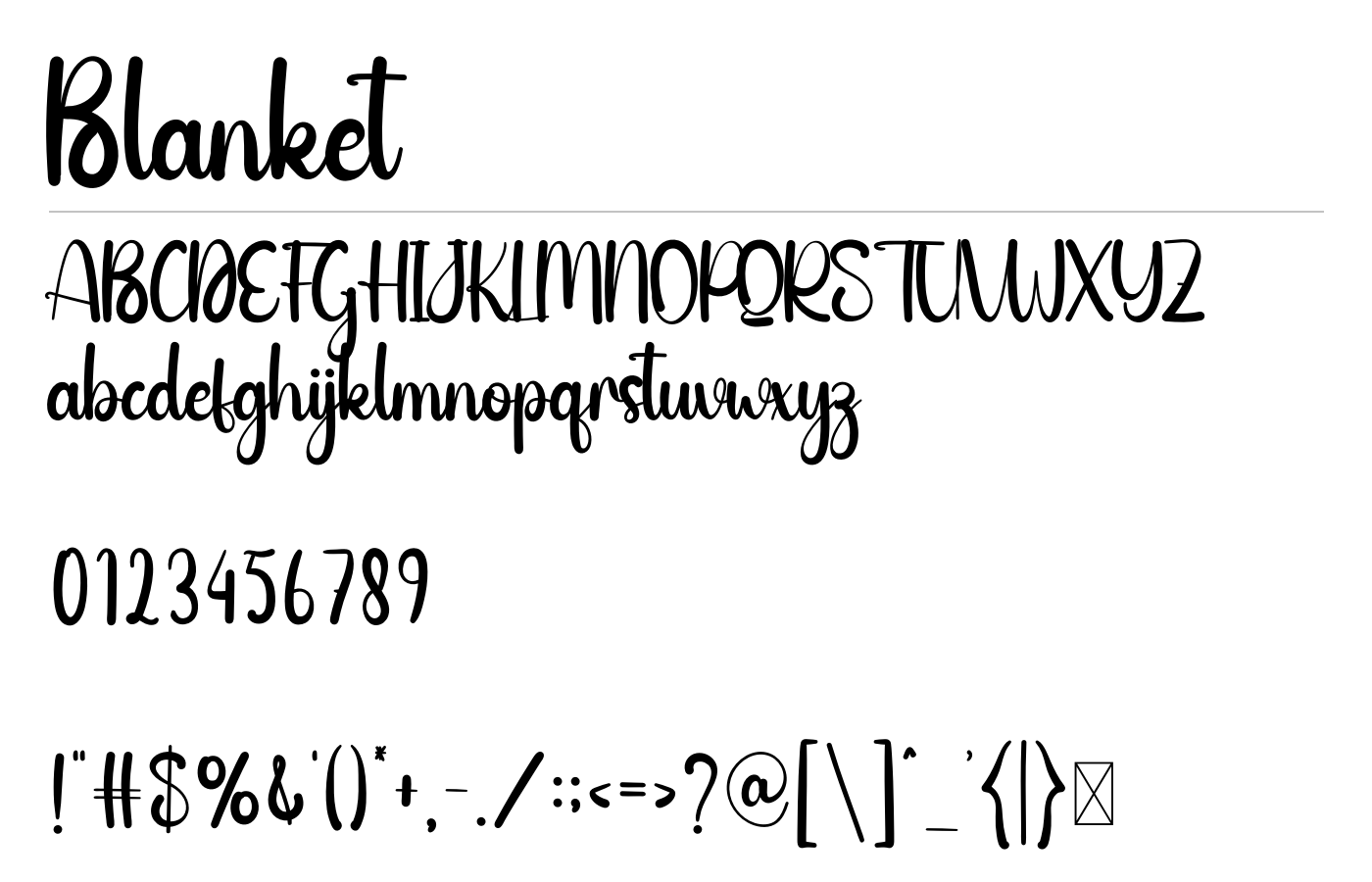
Blanket Font is a playful and casual handwritten script that offers a friendly and approachable feel with its tall, narrow letterforms and smooth, consistent strokes. Its clean yet lively design makes it perfect for creative branding, invitations, and fun editorial projects where a personal, informal touch is desired. This font works well in headlines and decorative text, adding charm without sacrificing readability.
Blanket Font